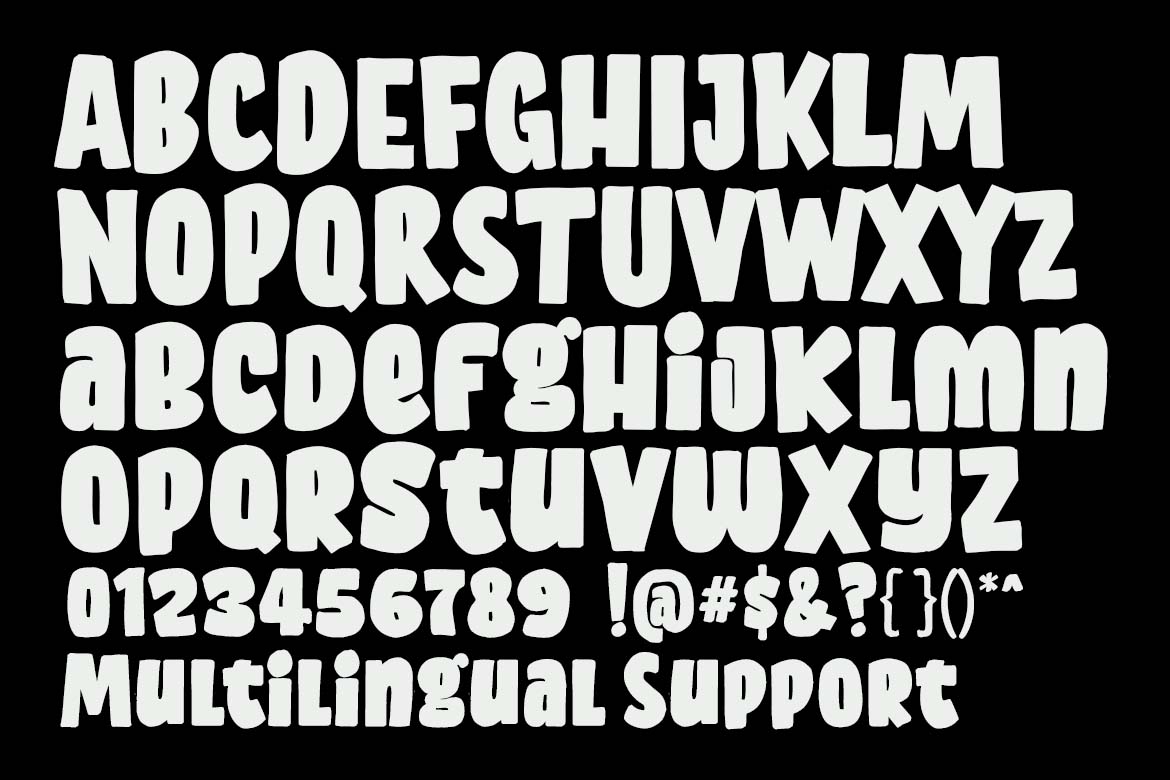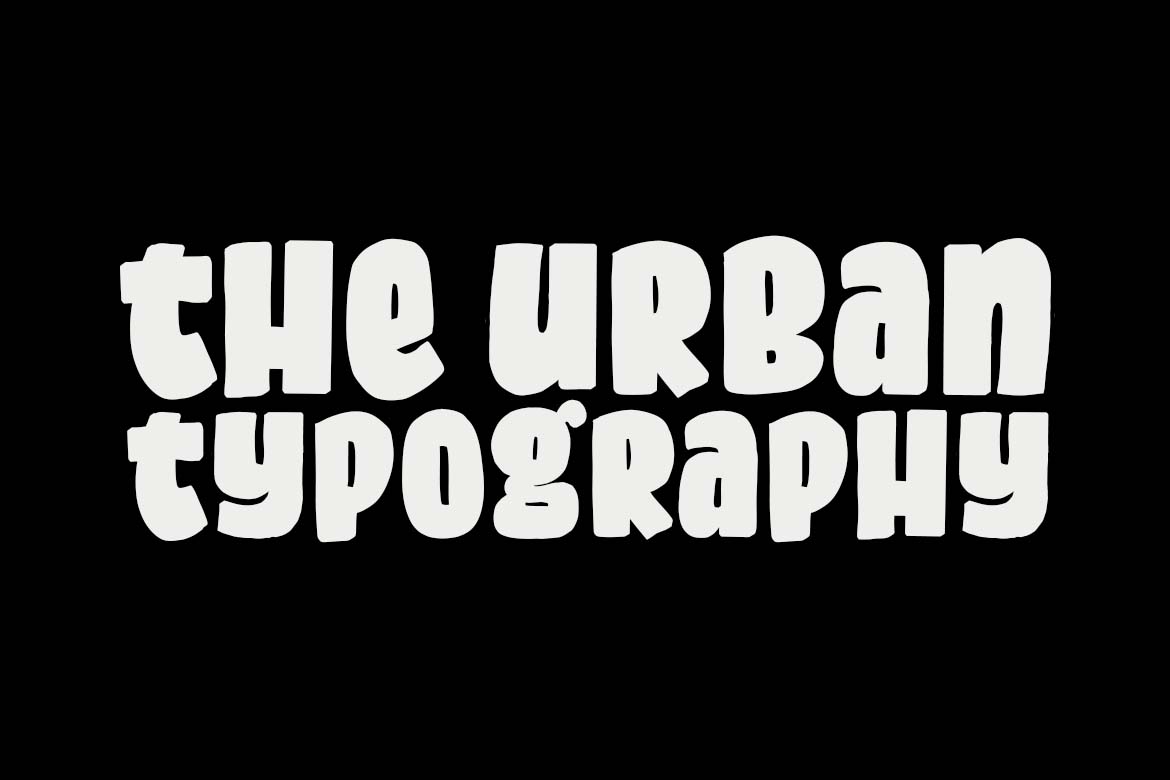
Prime Font – Fun Urban Font
Prime Font – A Natural & Fun Urban Font for Bold Branding
Meet Prime Font — a bold, hand-crafted typeface that blends natural, playful character with a strong urban personality. This unique font is made to break the rules of boring typography and give your design an edge that feels both fresh and human.
Available only at Primefont.com, Prime Font is perfect for eye-catching logos, creative food product packaging, and fun brand identities that stand out in competitive markets. Its chunky strokes, uneven edges, and organic vibe make it ideal for both casual design and corporate campaigns that aim to feel authentic and relatable.
Great for:
• Urban and youth-oriented branding
• Food packaging and quirky product labels
• Logo design with a fun and bold twist
• Creative merchandise and poster headlines
• Enterprise use for modern campaigns and brand refreshes
Whether you're building a personal brand or managing a large-scale corporate identity, Prime Font delivers clarity, confidence, and character. It's time to say goodbye to boring fonts — and hello to Prime Font.